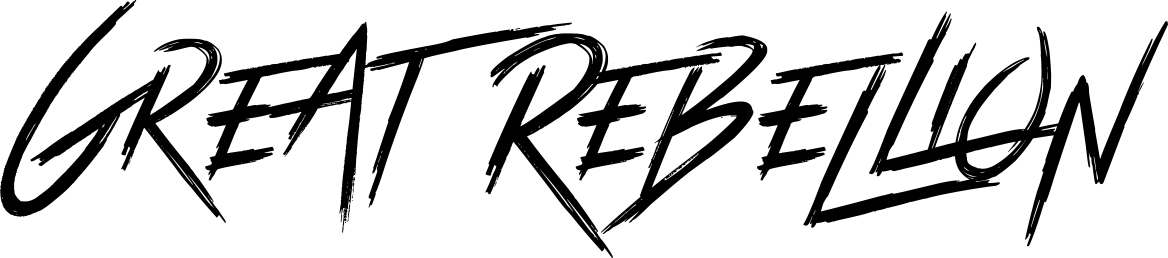
Great Rebellion Font
One way to increase content efficiency is to use attractive fonts. Great Rebellion is a very attractive font that conveys a sense of fear and excitement to the audience. Great Rebellion is a horror font and does not support punctuation and lowercase letters. This font is very suitable for designing content for teens and video game caps.